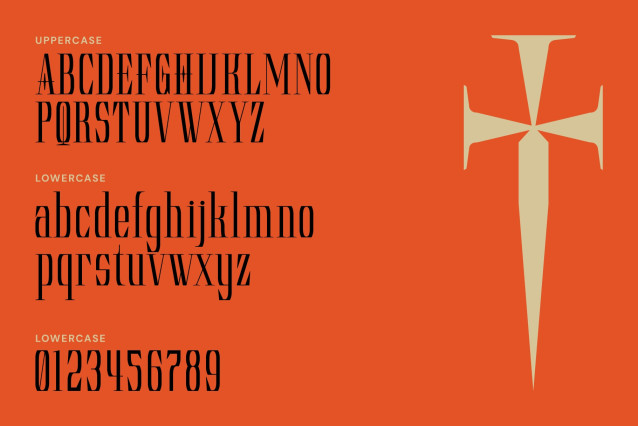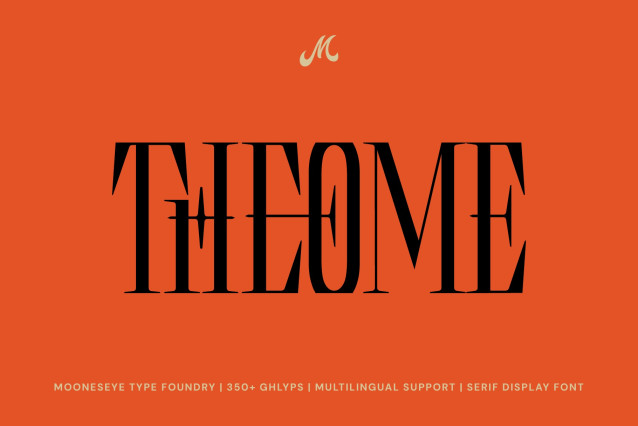
THEOME – SERIF DISPLAY FONT
THEOME – SERIF DISPLAY FONT is a condensed serif display font that bridges the gap between classic gothic architecture and contemporary high-fashion typography. Designed for impact, its razor-sharp serifs and towering verticality make it the perfect choice for designers looking to add a touch of dark elegance and mystery to their projects.
Whether you are crafting a luxury brand identity, a moody editorial layout, or an edgy streetwear drop, Theome provides a sophisticated edge that demands attention.